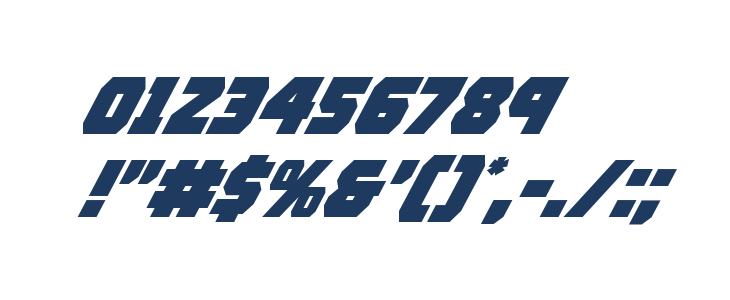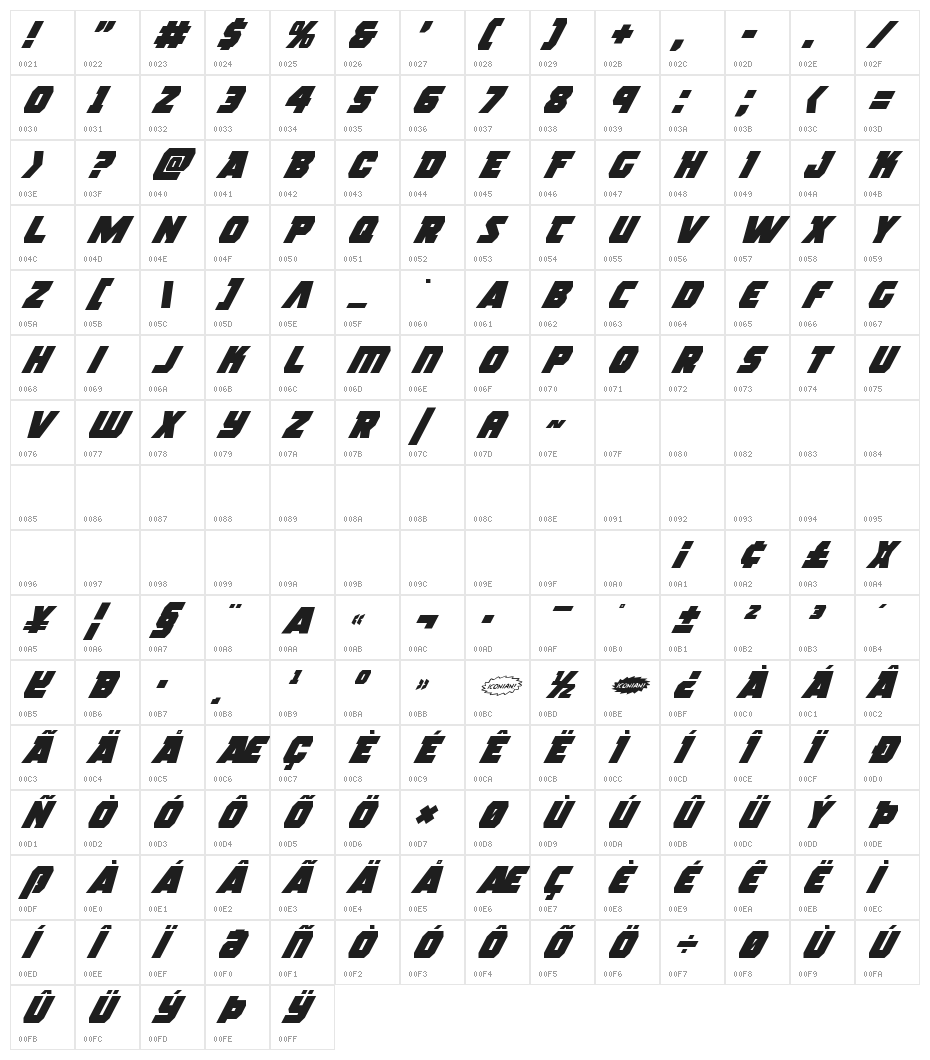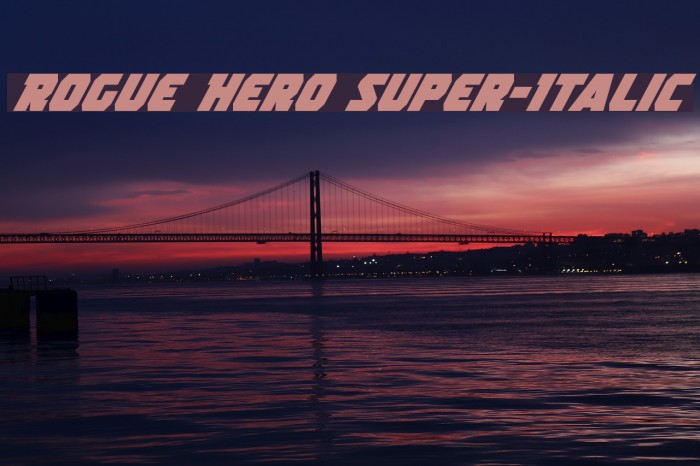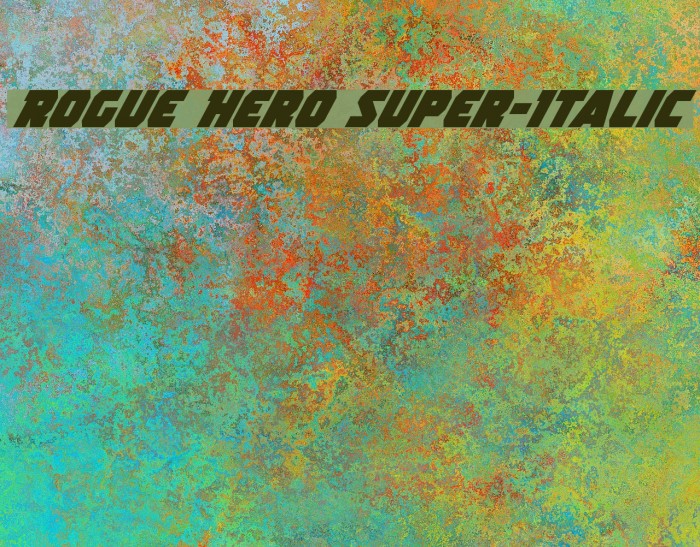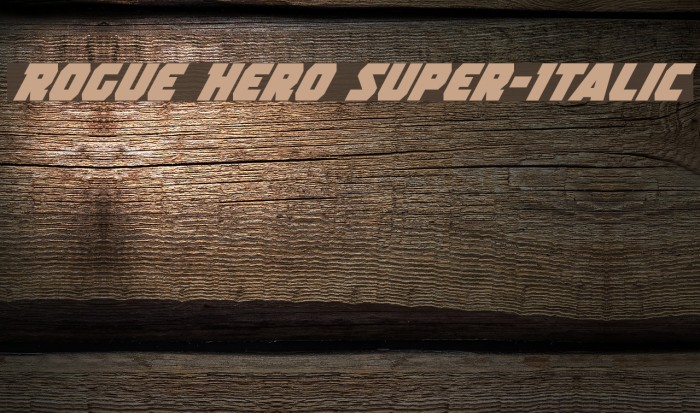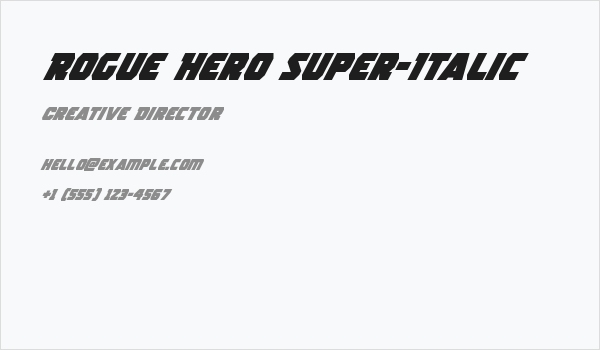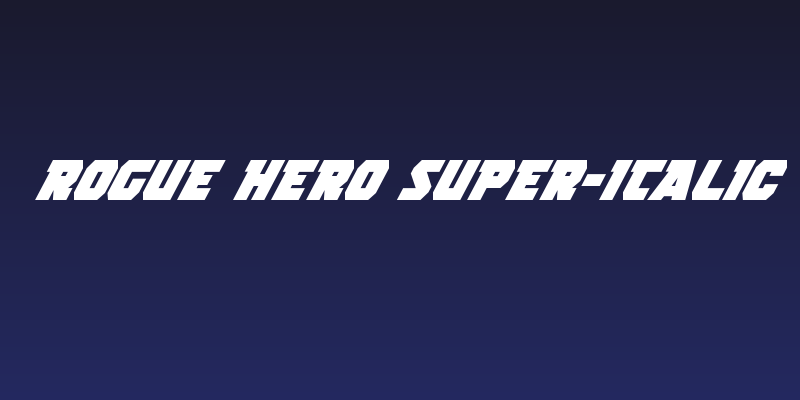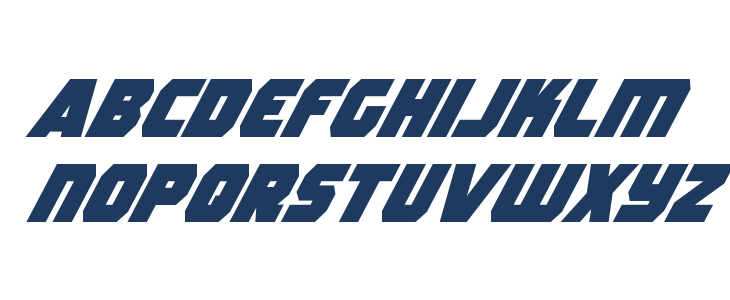
Rogue Hero Super-Italic Font
Rogue Hero Super-Italic Description
This font features a bold and dynamic style with a strong italic slant, giving it a sense of motion and energy. The characters are sharply angular, with thick strokes that convey a sense of power and assertiveness. The uppercase and lowercase letters maintain a consistent style, with the uppercase being particularly prominent and impactful. The numbers and special characters follow the same bold and italicized design, ensuring uniformity across all glyphs. This font is designed to stand out, making it ideal for attention-grabbing headlines and impactful designs.
| Proposed Projects | Ideal for action-themed posters, sports branding, video game titles, and dynamic advertising campaigns. |